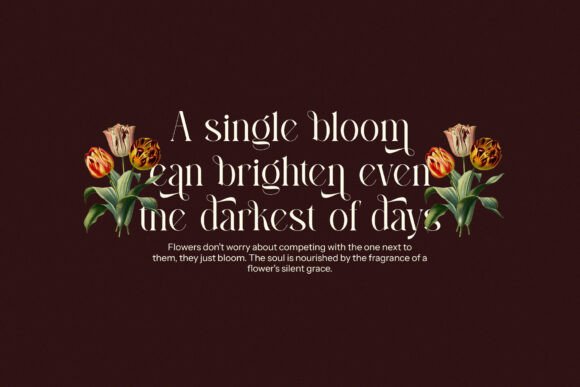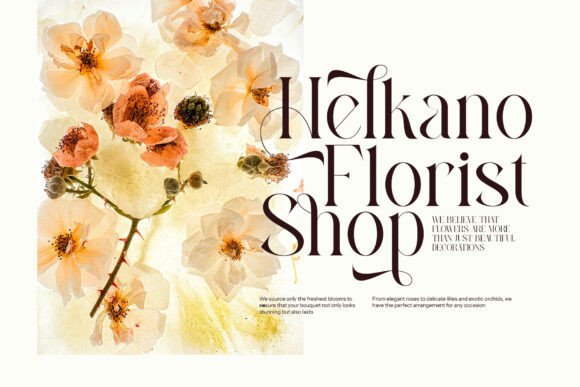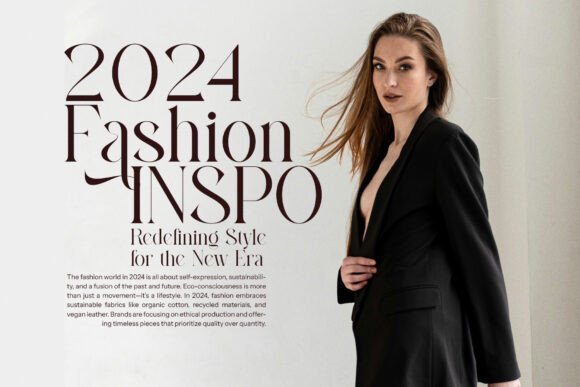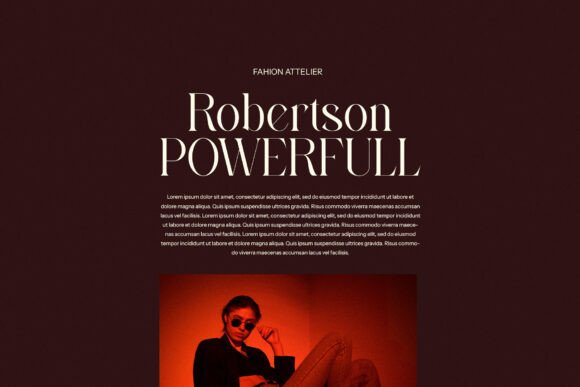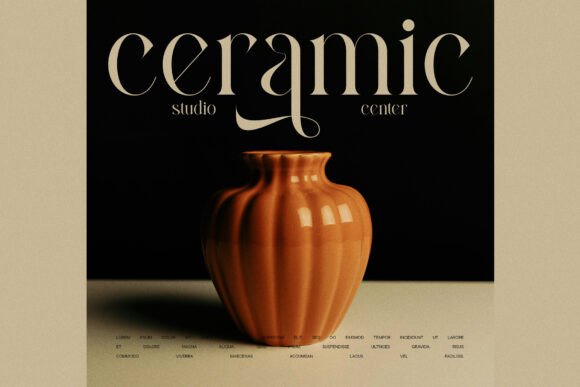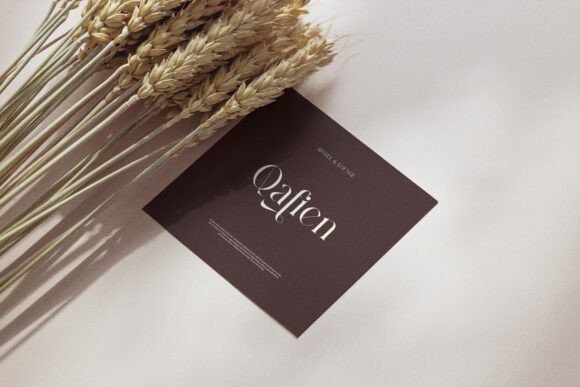
Introducing Alissan Font: Elevate Your Designs with Sophistication and Luxury
In the world of typography, a well-crafted font can make all the difference in elevating your design to new heights. For designers and crafters seeking to add a touch of sophistication and luxury to their work, Alissan Font is an exceptional choice. This stunning ligature serif font is designed with meticulous care to ensure premium quality, making it perfect for a wide range of applications.
The Unique Charm of Alissan Font
What sets Alissan Font apart from regular serif fonts is its unique ligatures. These special characters add a touch of elegance and refinement to any design, making it truly stand out. The ligatures in Alissan Font are carefully crafted to create a seamless and luxurious feel, perfect for designs that require a high level of sophistication.
Ideal for Formal and Creative Projects
Alissan Font is an incredibly versatile typeface that can be used in a variety of formal and creative projects. Its luxurious feel and sophisticated design make it ideal for:
- Logos: Create a lasting impression with a custom logo that exudes elegance and refinement.
- Headlines and Titles: Add a touch of sophistication to your headlines and titles, making them truly stand out.
- Invitations and Wedding Cards: Make your special occasions even more memorable with beautifully designed invitations and wedding cards.
- Labels and Packaging: Elevate your product labels and packaging with a luxurious feel that reflects your brand’s high standards.
- Fashion and Makeup: Add a touch of glamour to your fashion and makeup designs, perfect for high-end brands and editorials.
- Stationery and Novels: Create beautifully designed stationery and novels that showcase your attention to detail and commitment to quality.
- Advertising: Make your advertising campaigns truly unforgettable with a font that demands attention.
Why Choose Alissan Font?
With so many fonts available, why choose Alissan Font? Here are just a few reasons why designers and crafters love this exceptional typeface:
- Premium Quality: Alissan Font is designed with great care to ensure a high level of quality, making it perfect for professional designs.
- Unique Ligatures: The special ligatures in Alissan Font add a touch of elegance and refinement to any design.
- Versatility: This font can be used in a wide range of applications, from formal events to creative projects.
- Luxurious Feel: Alissan Font exudes a sense of luxury and sophistication, perfect for high-end brands and designs.
Tips for Using Alissan Font
To get the most out of Alissan Font, here are a few tips to keep in mind:
- Use it sparingly: Alissan Font is a statement font, so use it sparingly to make a lasting impression.
- Pair it with neutral fonts: Pair Alissan Font with neutral fonts to create a beautiful contrast and add visual interest.
- Experiment with ligatures: Don’t be afraid to experiment with the ligatures in Alissan Font to create unique and interesting effects.
In conclusion, Alissan Font is an exceptional choice for designers and crafters seeking to add a touch of sophistication and luxury to their work. With its unique ligatures, premium quality, and versatility, this font is perfect for a wide range of applications. Whether you’re working on a formal event or a creative project, Alissan Font is sure to elevate your design to new heights.